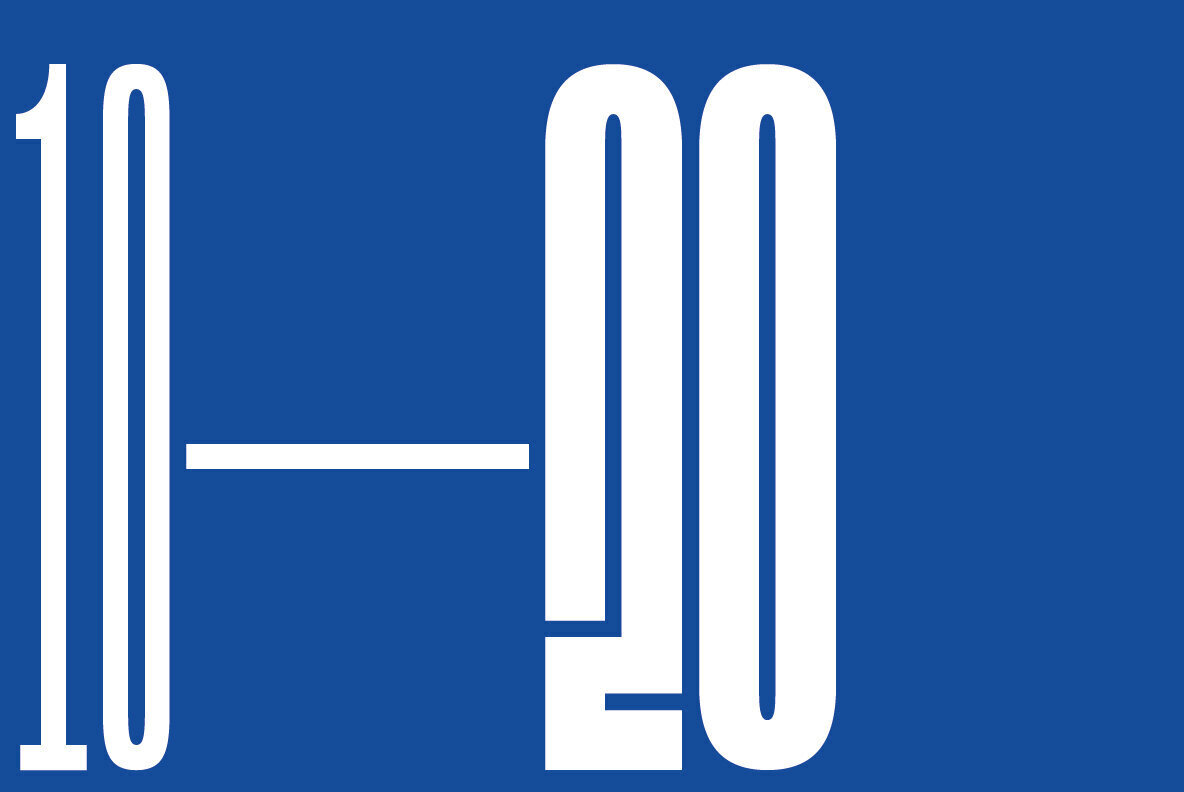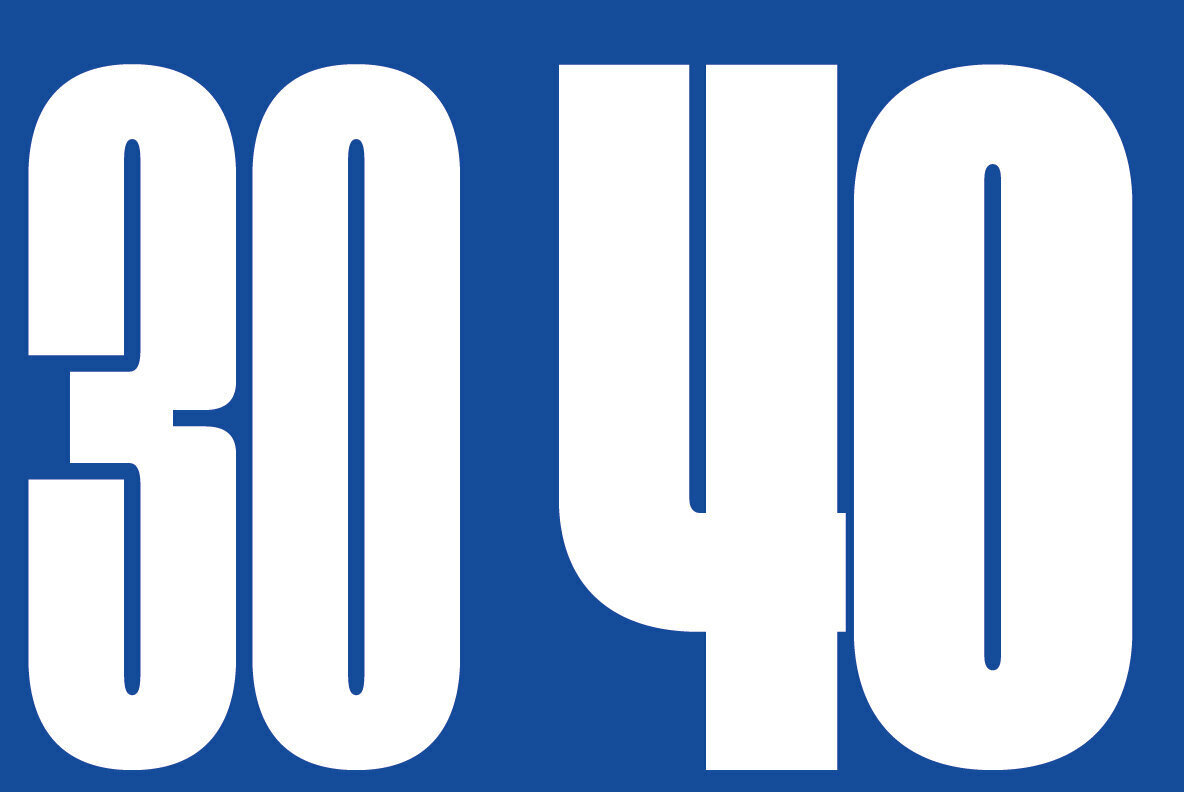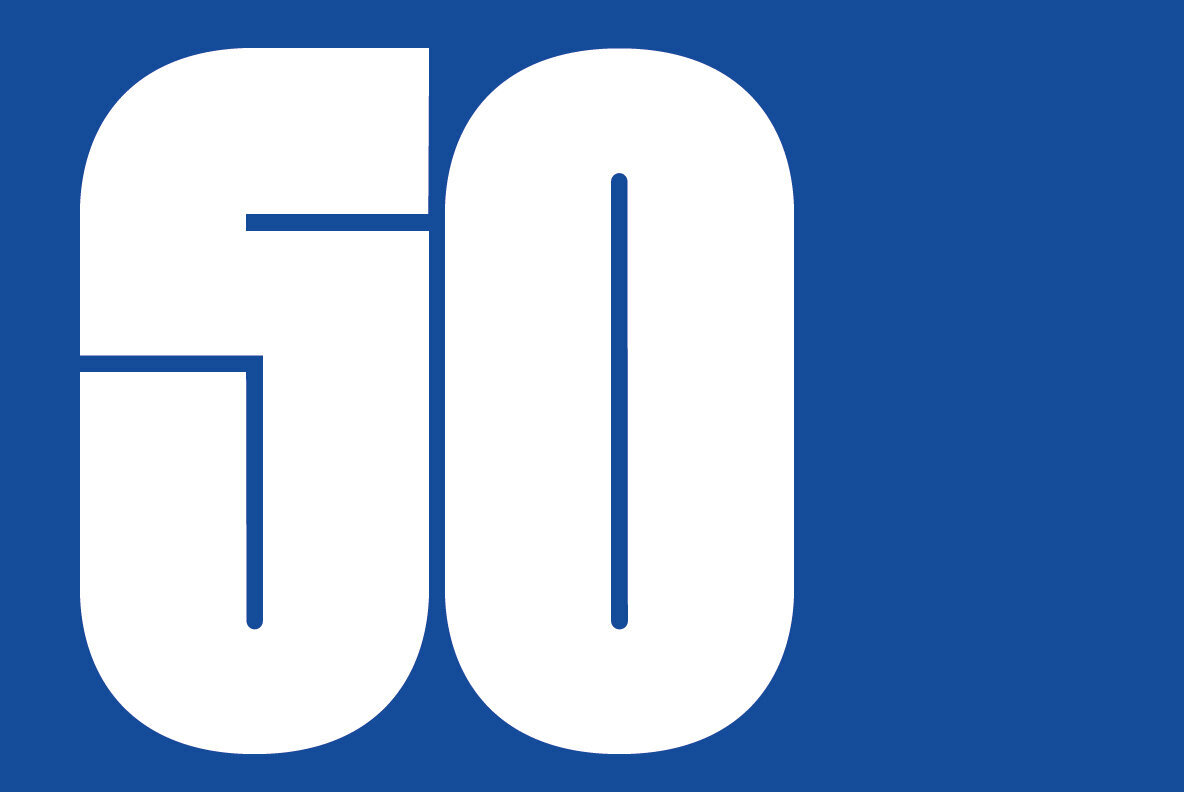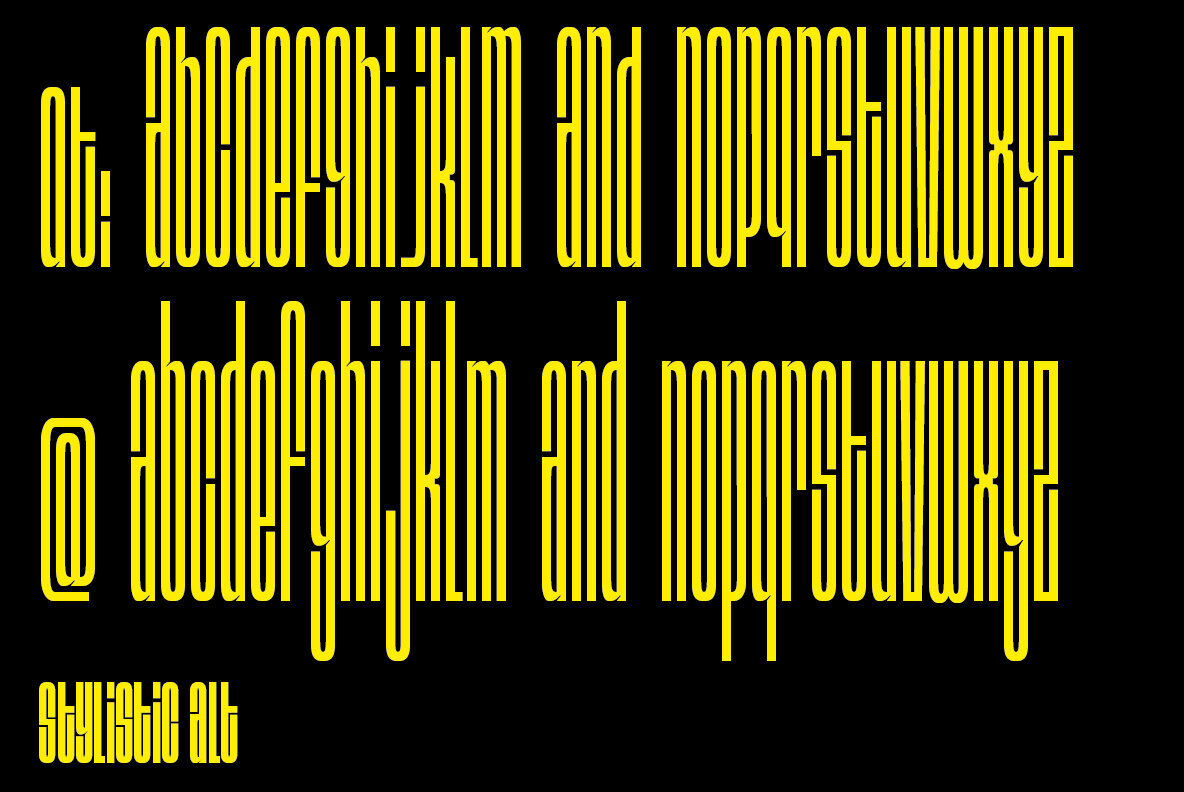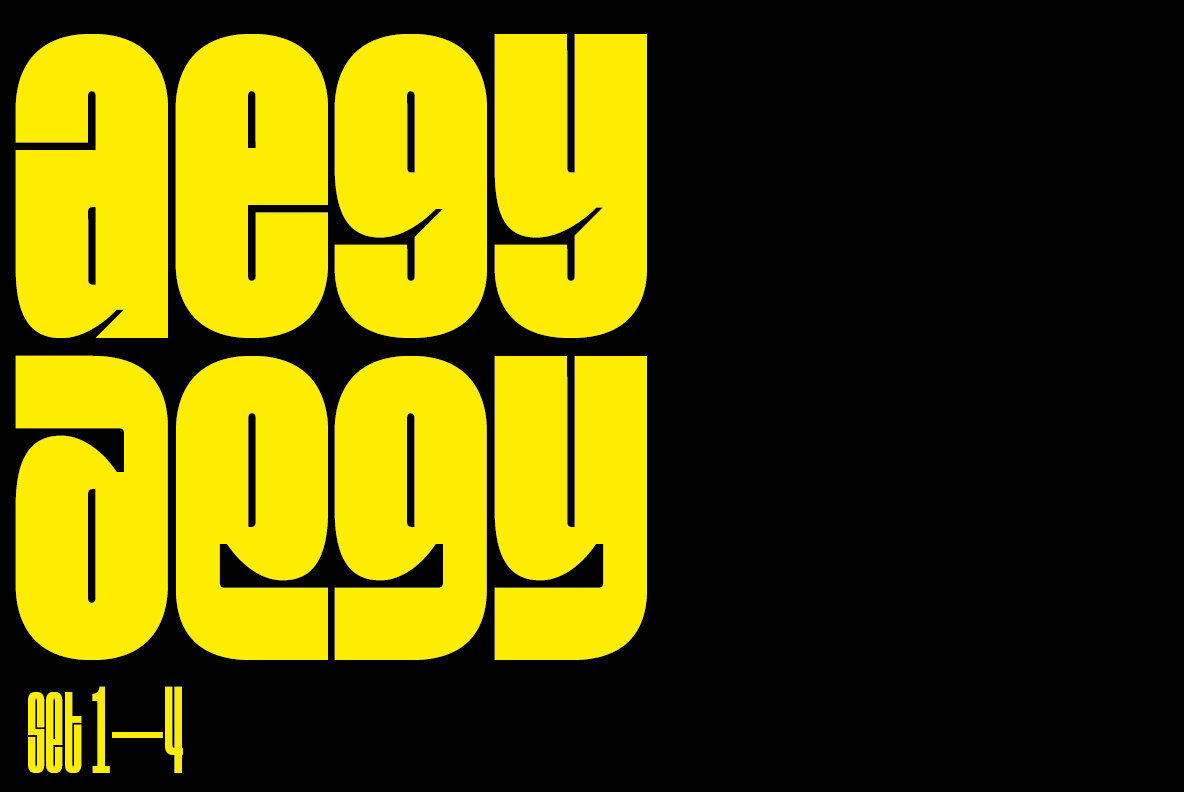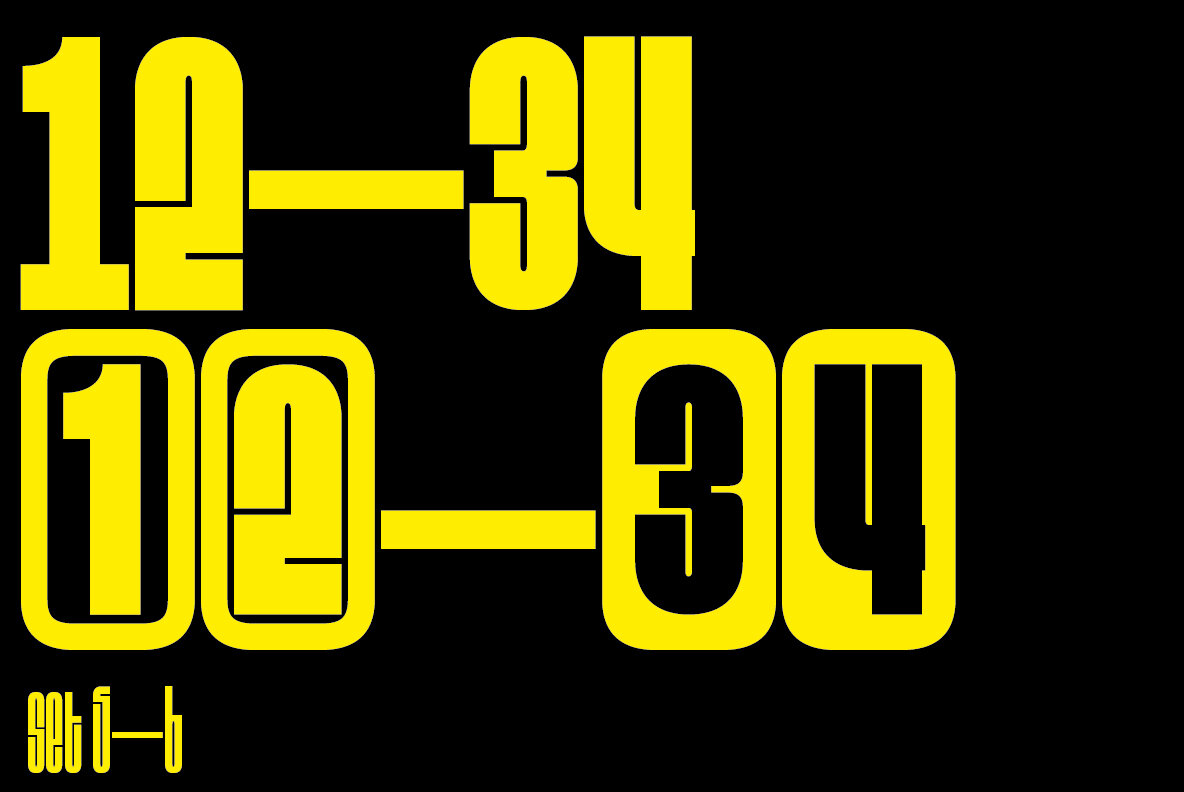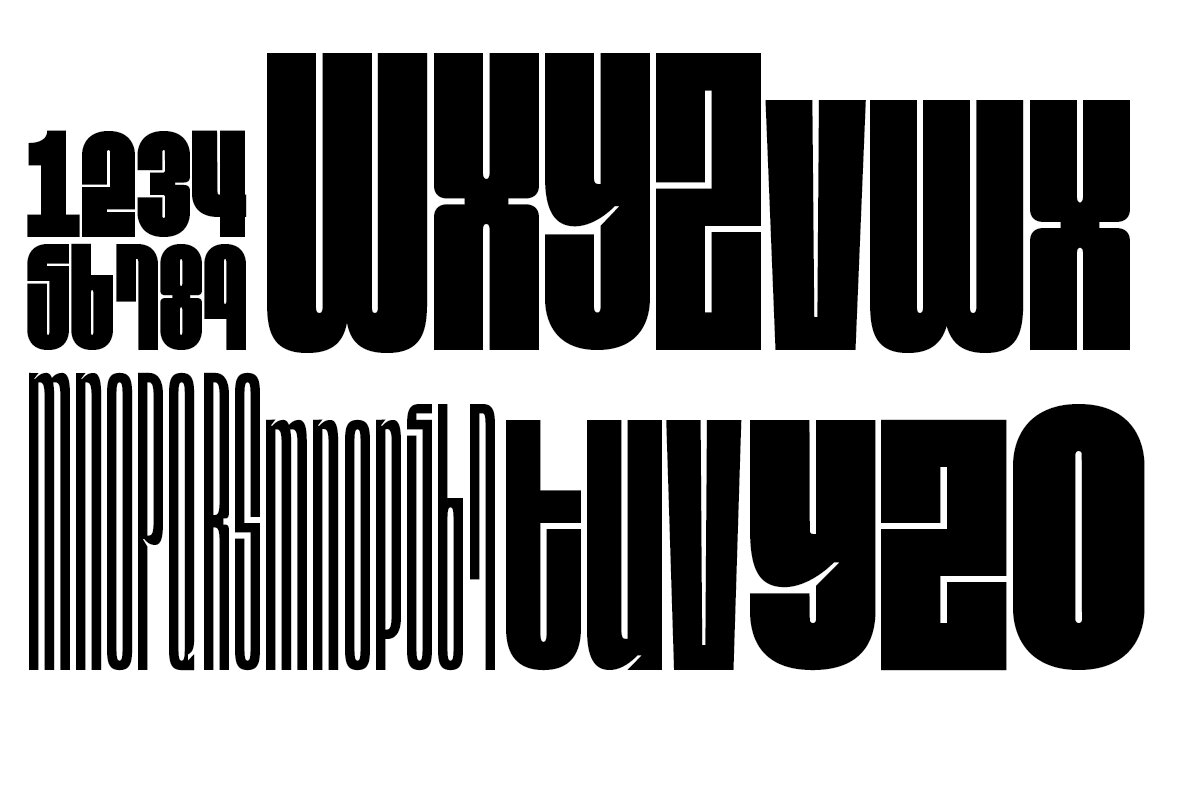
Hijisora Font
This beautiful typeface is perfect for any creative project! Hijisora is a FREE and condensed style sans serif font that will add a touch of elegance to your work. With its clean lines and stylish curves, this versatile font can be used for everything from invitations to posters to website headers.